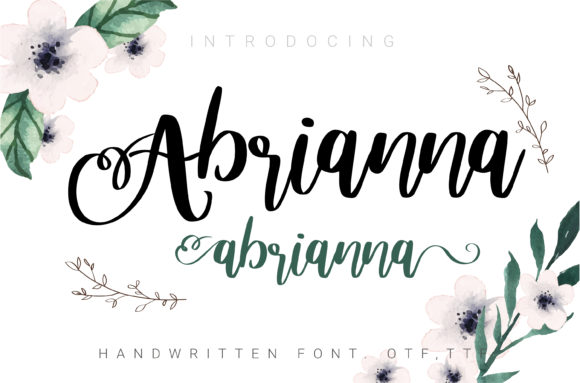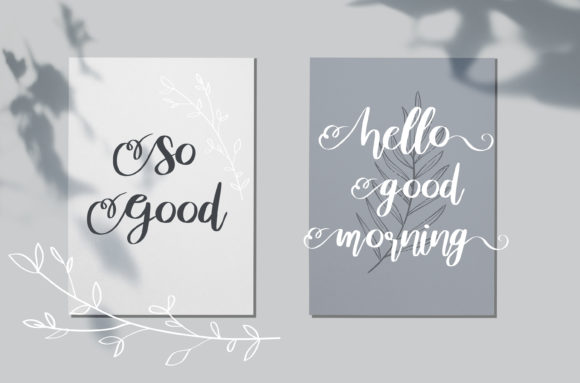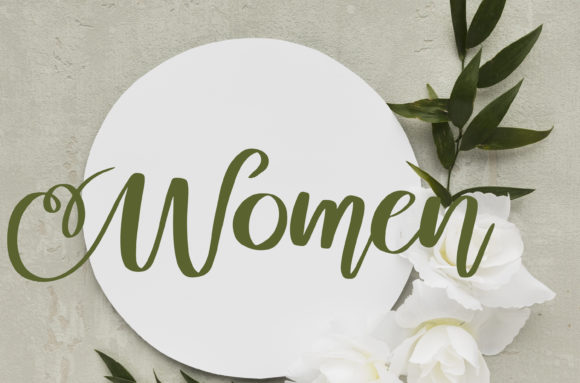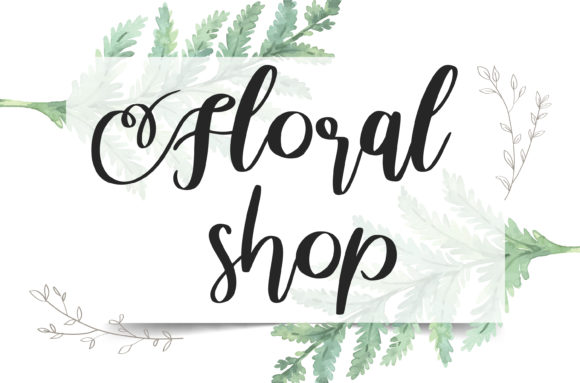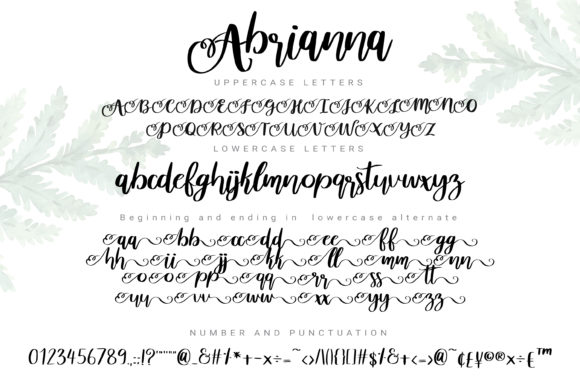
Abrianna Font
About Abrianna Font
Abrianna is a round lettered handwritten font, that feels equally charming and elegant. This font is PUA encoded which means you can access all of the glyphs and swashes with ease! It features a varying baseline, smooth lines, gorgeous glyphs and stunning alternates.